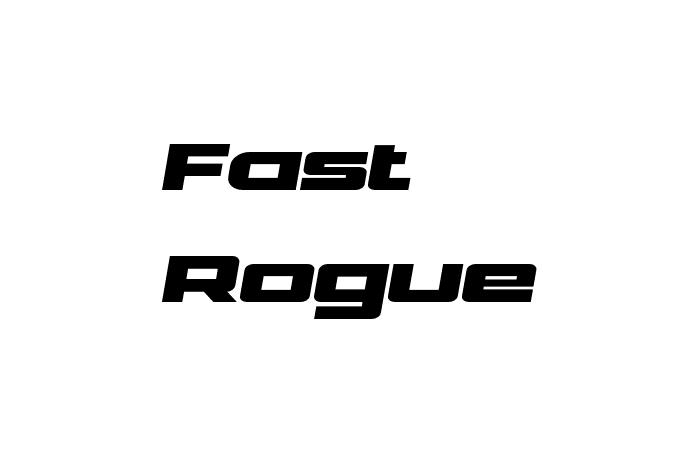
Uniwars W00 Regular
Introducing the modern Uniwars W00 Regular Font, is a cool and modern techno looking display Font This font is ideal for writing web designs, business cards, or pretty much anything else that requires a unique touch, this font designed by Ray Larabie is available for free download and personal use.
Font designer Ray Larabie
Typeface classification Techno